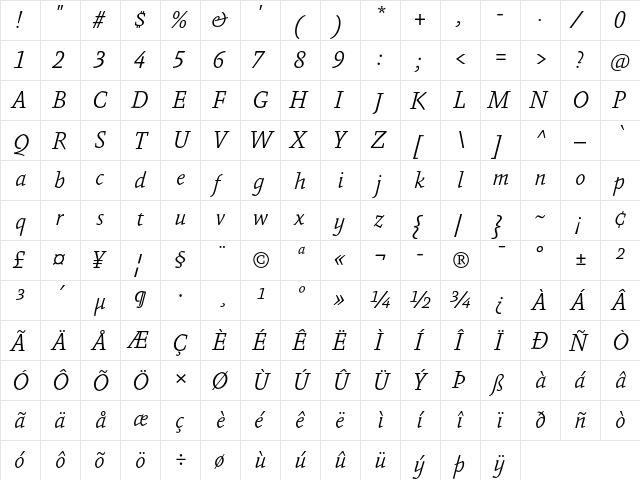
Absara TF Light Italic Font Preview
Design Context for Absara TF Light Typeface
Absara TF Light offers clean, dependable letterforms without strong stylistic allegiance, making it a practical choice for designers who need flexibility. The slanted form adds forward momentum and visual energy. The delicate stroke weight brings airiness and refinement to layouts.
Pro Tip: Try Absara TF Light for annotation and caption copy alongside an upright companion — the contrast in angle creates a dynamic but ordered typographic system.